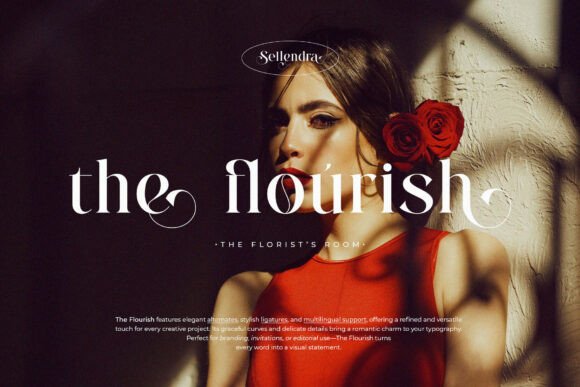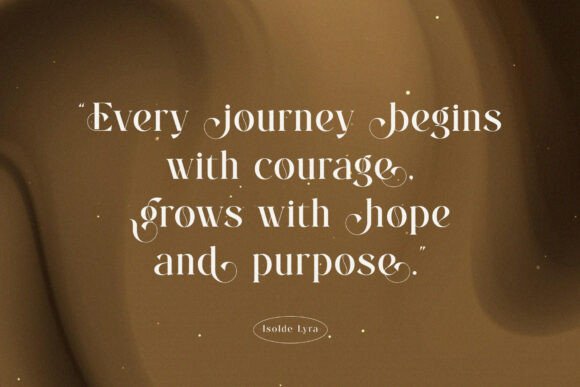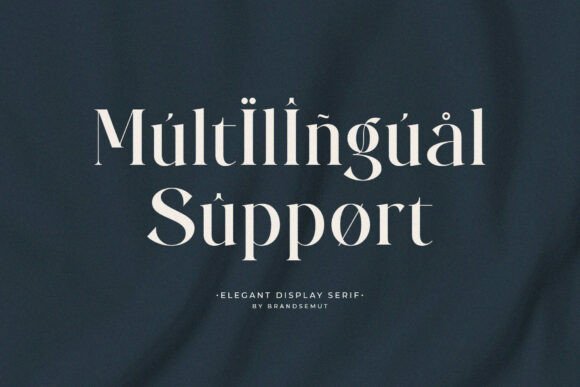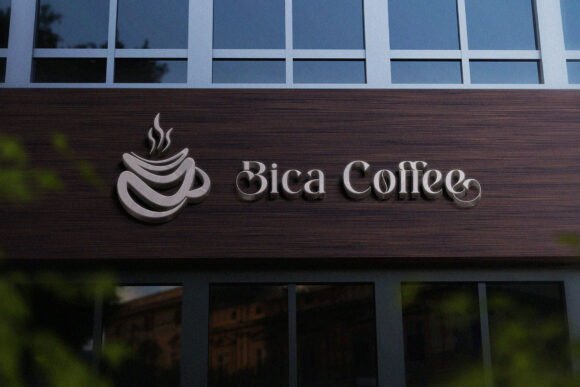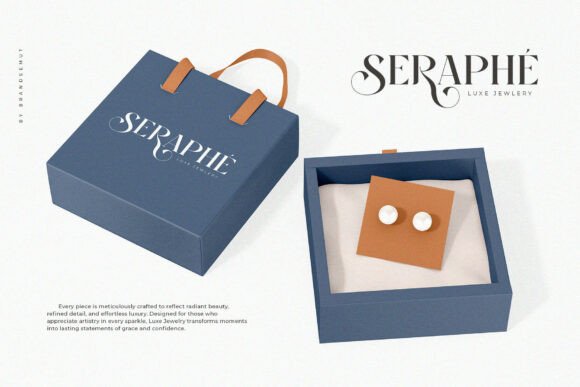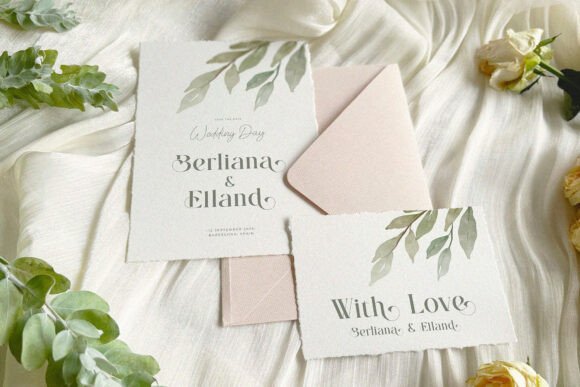
Introduction to Sellendra Font
Sellendra is a stunning elegant display serif font designed for luxurious, creative, and timeless projects.
Featuring beautifully crafted uppercase and lowercase characters, along with expressive swashes and ligatures, Sellendra is perfect for branding, editorial titles, wedding stationery, product packaging, and artistic logos that demand attention and sophistication .